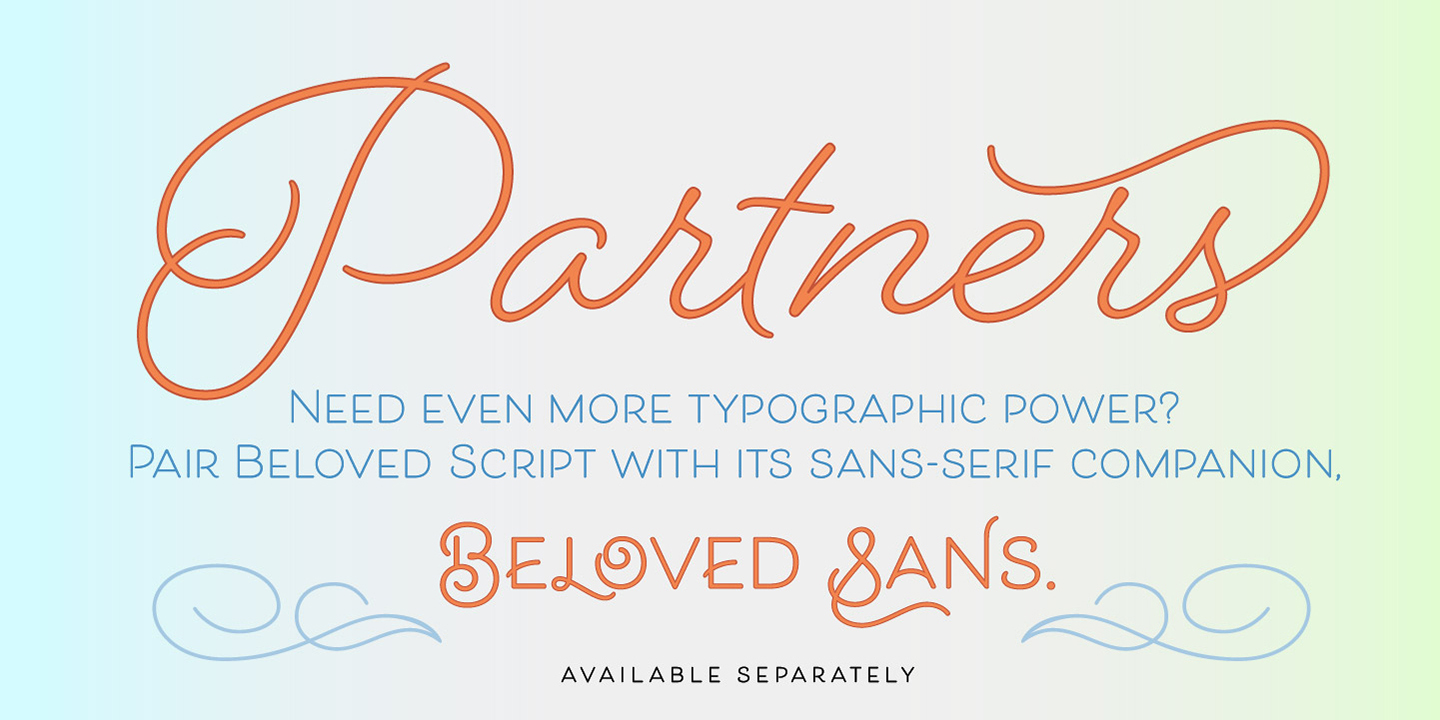
Beloved Script Basic
The Beloved Collection – the hand of a romantic spirit, rendered in ballpoint – featuring a lively script, a versatile and elegant sans and 80 decorative elements designed to complete the family. Beloved Script The hand of a romantic spirit, its monoline strokes evoke classic 20th-century penmanship achieved with a ballpoint or rounded nib. Beloved Script embodies a casual and natural state of handwriting: the semi-connected script. With over 1,000 swashes and alternates to choose from, including capitals, beginning, and ending forms, it can become a beautifully decorative spectacle, powerful for custom headlines and wordmarks. Beloved Sans A simple sans that likes to get swashy. It’s an all-capitals face with corresponding small capitals scaled to about 85% of the original letters — just enough differentiation to be distinctive in the display settings for which it’s designed. Beloved Sans includes over 800 swash and alternate forms, making it incredibly useful and versatile for wordmarks and distinctive headlines. The titling variant adds a hint of the Art Deco style, while the swashed capitals add calligraphic flair. Includes lining and old-style numerals. Beloved Ornaments feature 80 decorative elements designed to complement Beloved Script and Beloved Sans (or both!) See what’s included! Script • Sans • Ornaments *NOTE* Basic versions DO NOT include swashes, alternates or ornaments These fonts have been specially coded for access of all the swashes, alternates and ornaments without the need for professional design software! Info and instructions here: http://lauraworthingtontype.com/faqs/